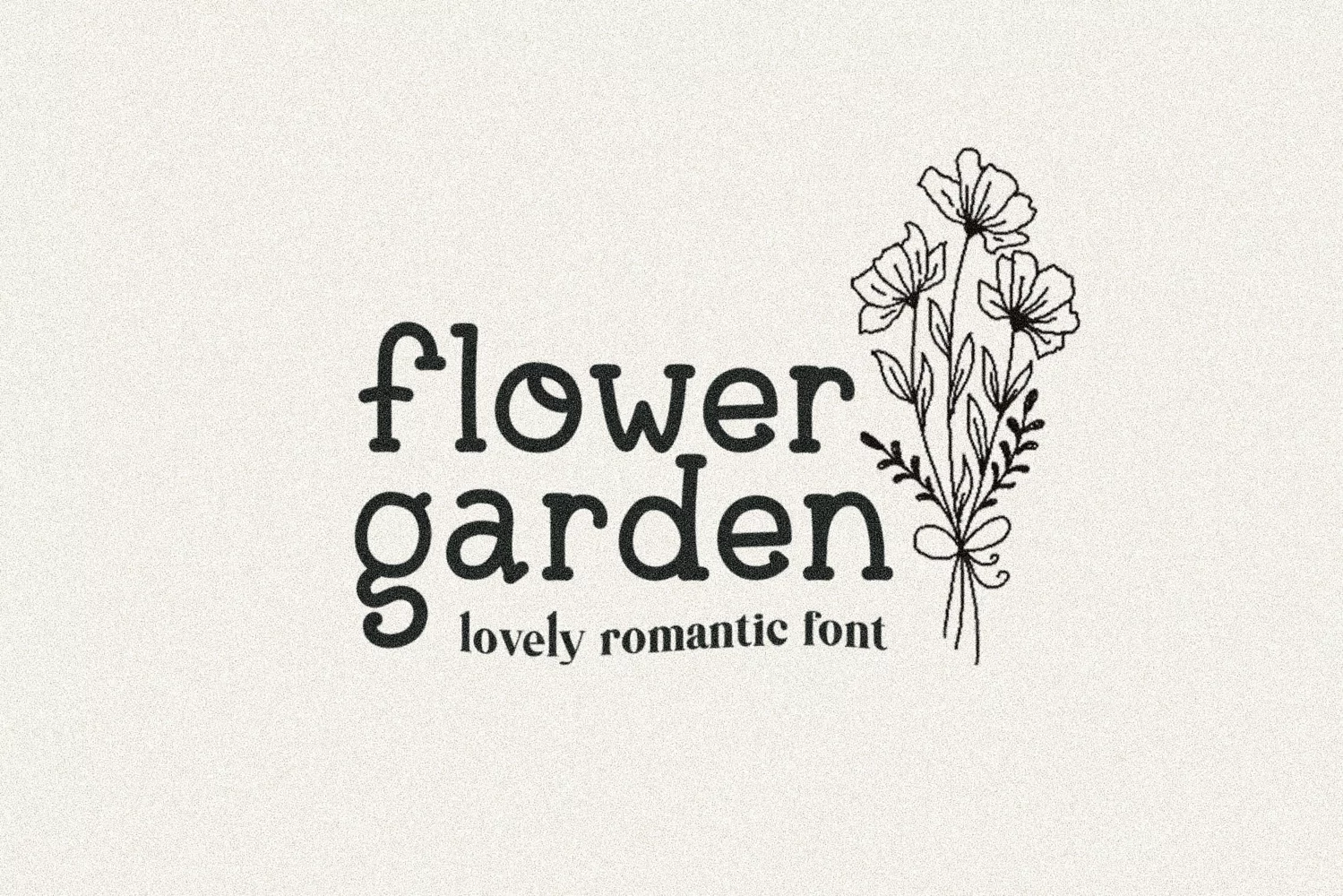
Flower Garden - lovely romantic farmhouse font for crafters and designers.
Perfect to create:
- DIY Decorations: Create your own decorations like banners, stickers, signs, wall posters, pillows, mugs for your home or party venue.
- Craft Projects: Design craft projects such as scrapbooking, cricut projects, sublimation designs.
- T-shirt Designs: Print t-shirts with cute or fun messages.
- School Projects: Enhance school presentations or projects.
- Social Media Graphics: Design attention-grabbing posts for your social media accounts.